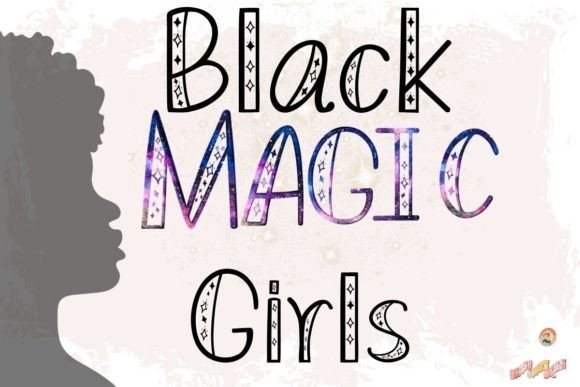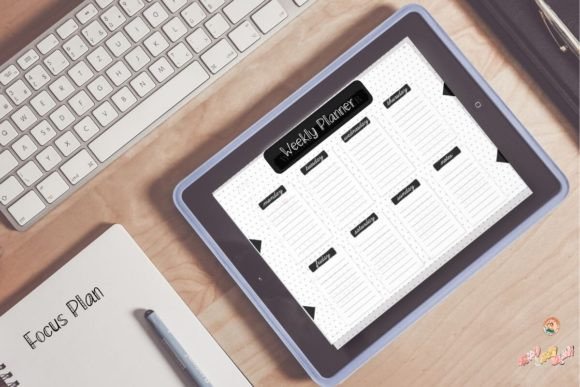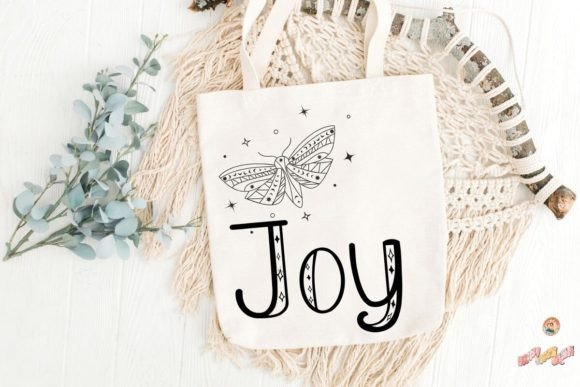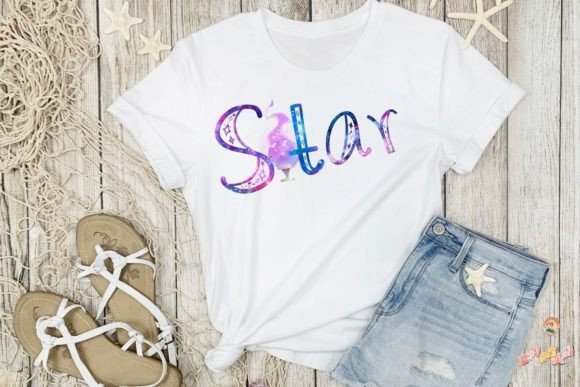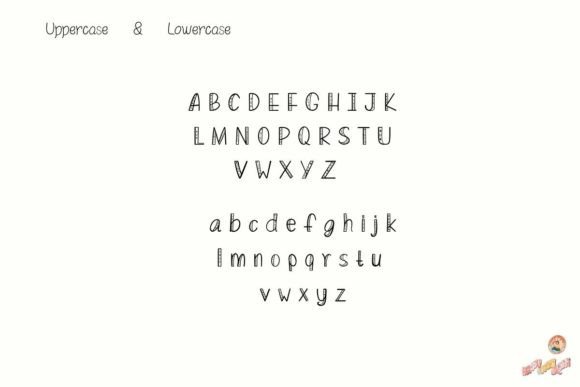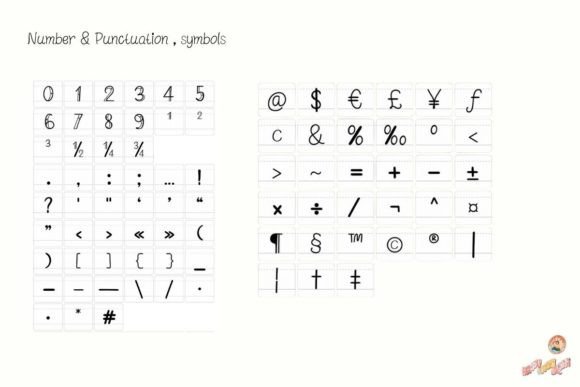
Introduction to Magic Star Font
As a designer, there’s nothing quite like the thrill of bringing a creative project to life. You’ve spent hours brainstorming, sketching, and perfecting every detail, and finally, it’s time to add the finishing touches. For me, that moment often comes when I’m searching for the perfect font to tie everything together. That’s why I’m excited to introduce you to the Magic Star Font, a delightful decorative typeface that’s sure to add a touch of magic to any design.
With its whimsical elements integrated into each letter, Magic Star Font is the perfect choice for creating holiday cards, gift tags, and seasonal banners that truly stand out. Whether you’re looking for a high-quality design resource or a unique way to express your creativity, this font is a valuable addition to any designer’s toolkit.
Key Features of Magic Star Font
- Features a unique and intricate star design, making it perfect for adding a touch of magic to your projects.
- Designed to be highly customizable, allowing users to easily modify the font to suit their specific design needs.
Honest Review: Magic Star Font
As a designer, I’m always on the lookout for high-quality design resources that can elevate my creative projects. Recently, I had the chance to work with the Magic Star Font, and I’m excited to share my honest review with you.
- Eye-catching design: The Magic Star Font is undeniably visually striking, making it perfect for projects that require a touch of magic.
- Transparent background: The font’s transparent background allows for seamless integration with various design elements, giving me more creative freedom.
Any limitations ⚠️
- Limited font styles: While the font is beautiful, it’s only available in a few styles, which may limit its versatility for some designers.
- No bold weights: I wish there were bold weight options to add more depth to my designs.
Overall, the Magic Star Font is a great addition to any designer’s toolkit. Its unique design and transparent background make it perfect for creative projects. While it has some limitations, I still think it’s a valuable resource for designers looking for a free, high-quality font.
Tips for Getting the Most Out of Magic Star Font
To get the most out of Magic Star Font, use it in combination with a transparent background to create a striking design. Experiment with different font sizes, styles, and effects to add depth and interest to your design.
The Magic Star Font is perfect for creating eye-catching titles, headings, and text elements for your creative project. Use it in brochures, posters, flyers, and social media graphics to add a touch of magic and sophistication.